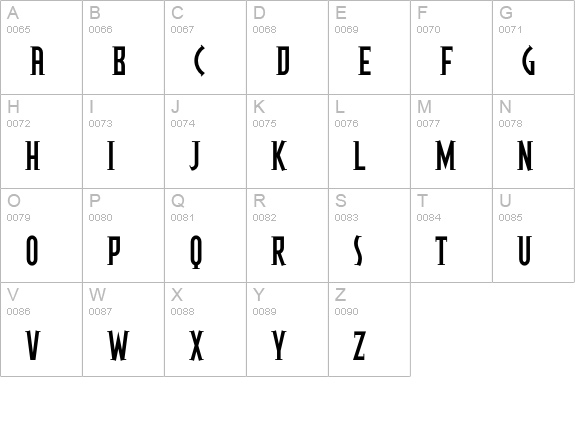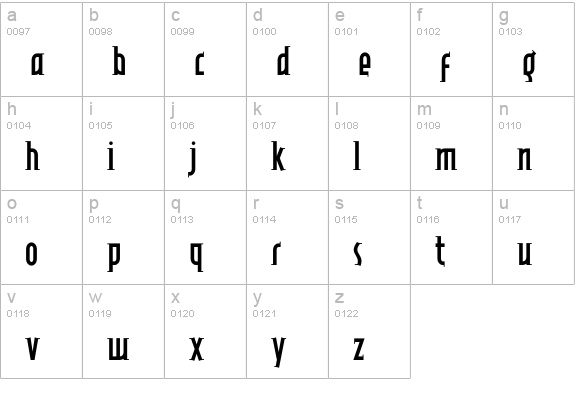
Konfactur-One Font Details
Introducing Konfactur-One font, a stunning display typeface that effortlessly combines elegance with modernity. With its sleek and sophisticated design, Konfactur-One is sure to make any project stand out. This versatile font is perfect for a wide range of design applications, from branding to web design to print materials. What sets Konfactur-One apart is not only its impeccable style, but also the fact that it is completely free to download. Yes, you read that right - this high-quality font is available for free at FontsMarket.com. Now you can elevate your designs without breaking the bank. Whether you're working on a logo, poster, website, or any other creative project, Konfactur-One is sure to add a touch of class and professionalism. Download this exceptional font today and take your designs to the next level!